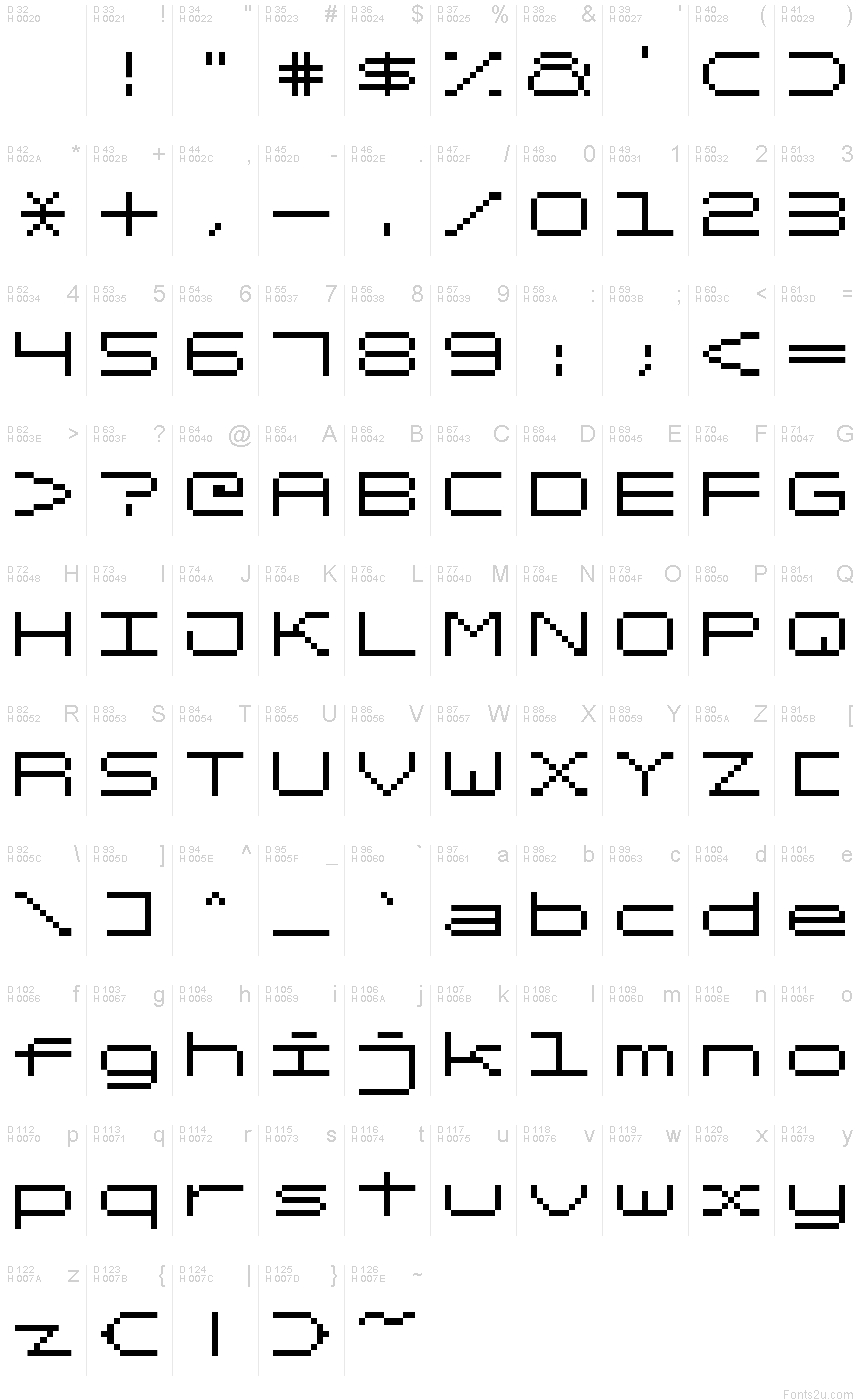
fixed_v03
Fixed v03 font by Orgdot is a free bitmap pixel typeface that looks like it was pulled straight from a glitched command line. Each character is built from rigid, blocky modules, with sharp right angles and occasional staggered steps that give text a faintly broken, hacked-into signal. The spacing feels tight and mechanical, so words read like data streams marching across a low-res screen.
Using Fixed v03, you can instantly give UIs, terminal mockups, retro game menus, cyberpunk posters, zines, album covers, and techy logos a raw, 8-bit edge. This free font shines at small to mid sizes where the grid structure stays crisp and deliberate; pair it with a clean geometric sans for body copy to keep the chaos controlled.